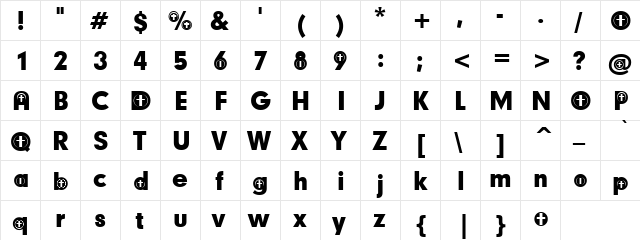
Medical Rep Regular
Design Context for Medical Rep Typeface
Medical Rep offers clean, dependable letterforms without strong stylistic allegiance, making it a practical choice for designers who need flexibility.